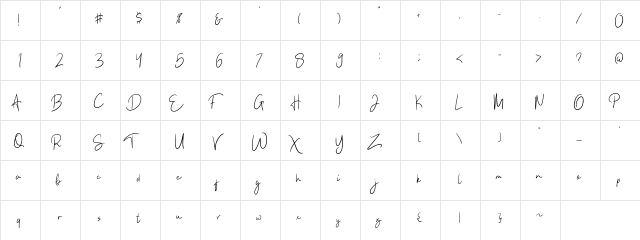
Kathlyn Regular
| Foundry | Youthlabs Studio |
| Designer | Fathialghazi |
Design Context for Kathlyn Typeface
Kathlyn is a composed and adaptable typeface that performs quietly and consistently across a wide range of design contexts.